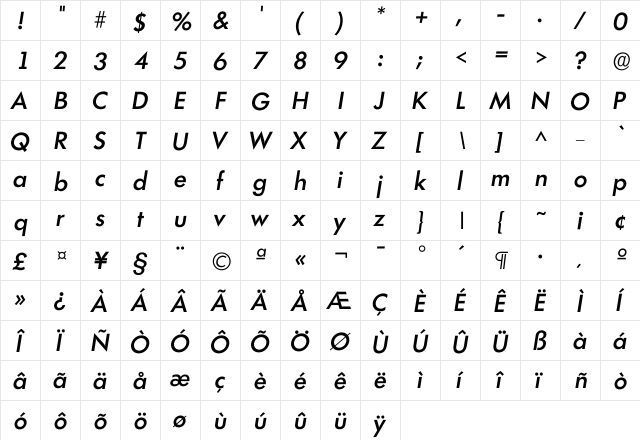
Ilimerick Medium
Design Context for Ilimerick Typeface
Ilimerick takes a measured approach to typography — its balanced proportions and neutral character make it a reliable workhorse for both digital and print work.